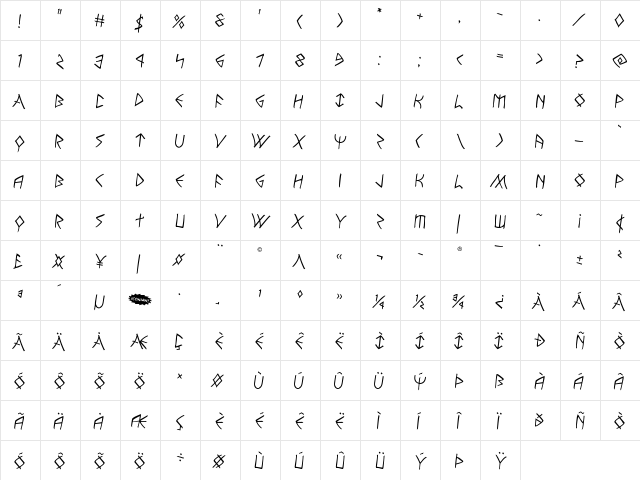
Rune Slasher Rotated 2 Regular
Design Context for Rune Slasher Rotated 2 Typeface
Rune Slasher Rotated 2 is a composed and adaptable typeface that performs quietly and consistently across a wide range of design contexts.